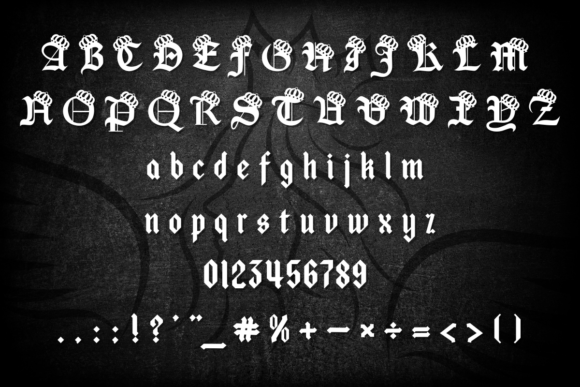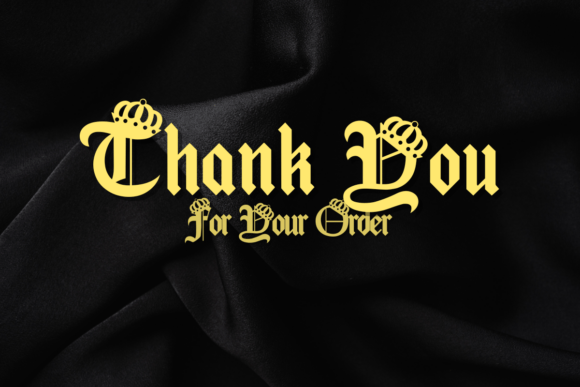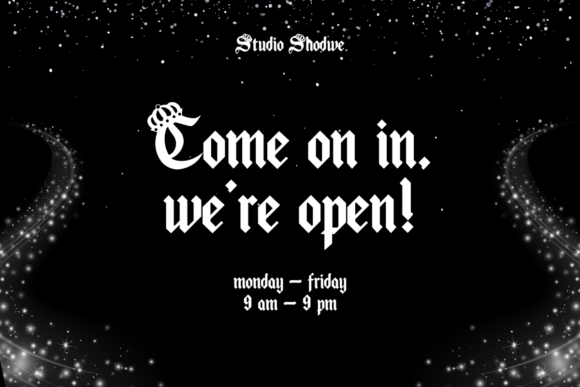
Queen Old English Font
Queen Old English is a regal blackletter font with a modern flair. Featuring bold, dramatic strokes and crowned letters, it commands attention with its vintage Gothic style. Perfect for luxury branding, fantasy themes, or royal-inspired logos, this typeface adds a touch of nobility to any design.